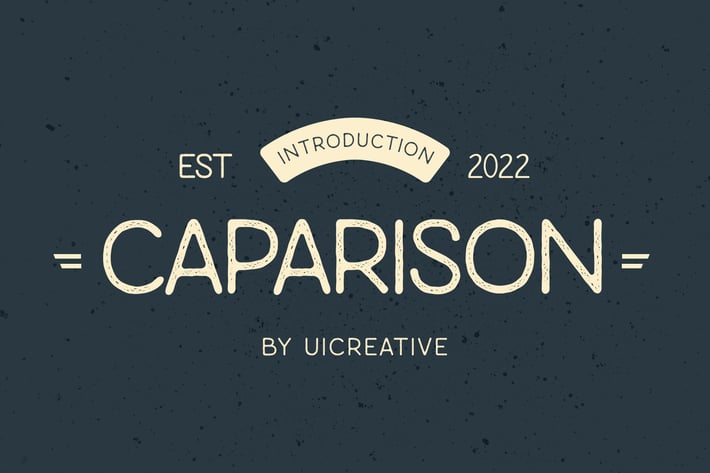
Caparison Vintage Typeface Font
Introducing our new product the name is Caparison Vintage Typeface Font. This font gives a feel of vintage, classic, old, and based on handmade. Ideally suited for a wide variety of projects, such as signature, stationery, logo, wedding, typography quotes, magazine or book covers, website headers, clothing, branding, packaging design, and more. Also, fashion-related branding or editorial design displays both masculine and feminine qualities.